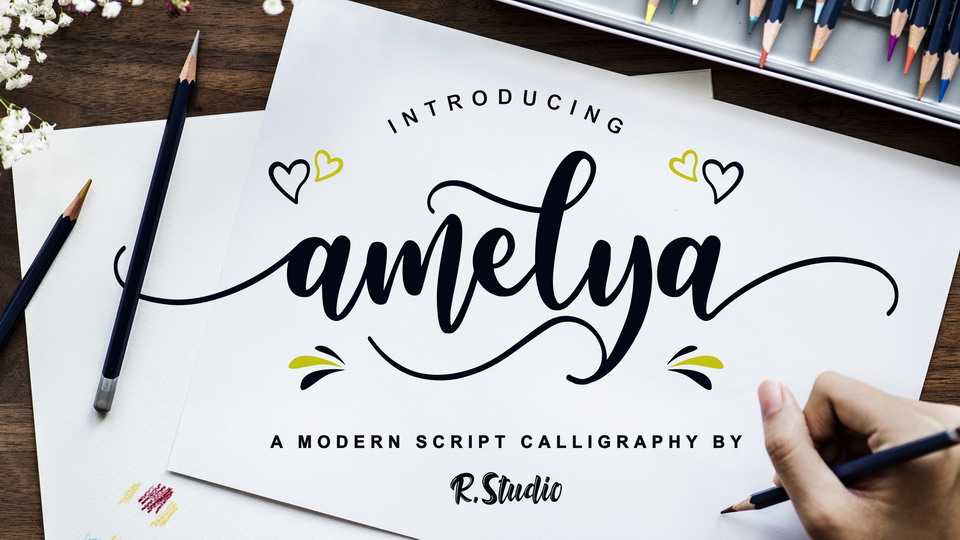
Download Amelya font, a pretty modern calligraphy script. It’s classic look and dancing baseline makes it perfect for adding an elegant touch to your designs.
Designer: R Studio